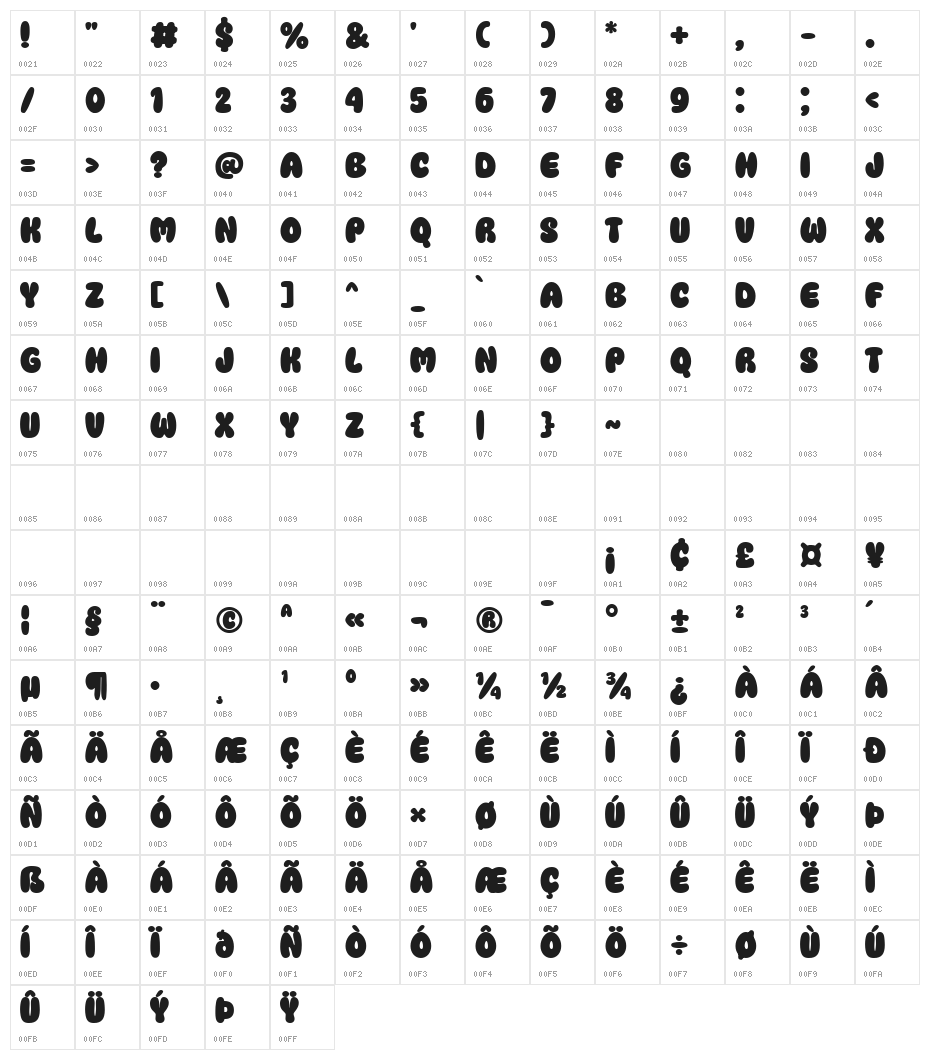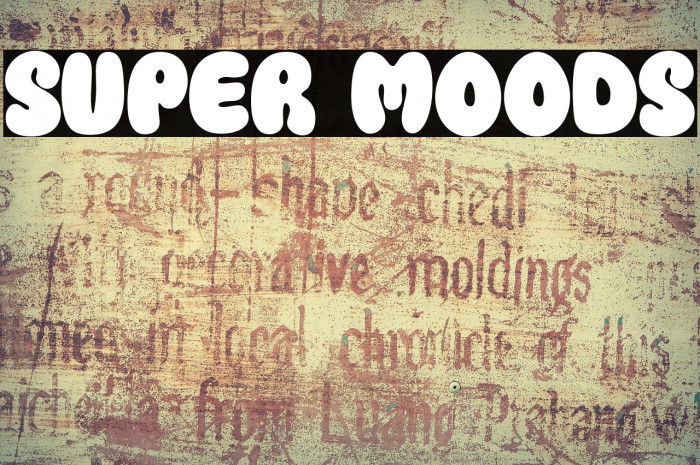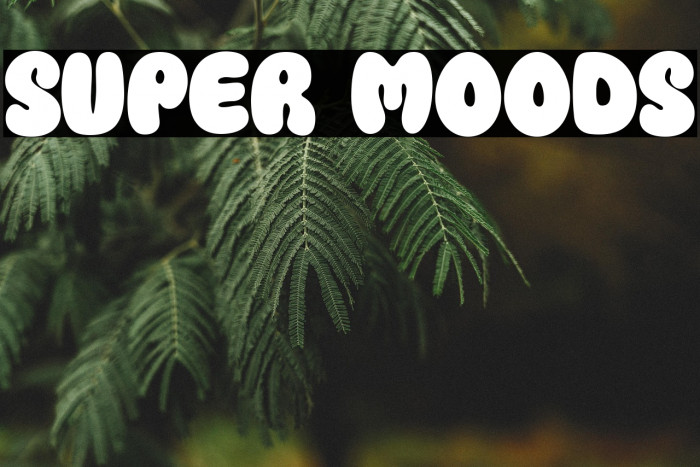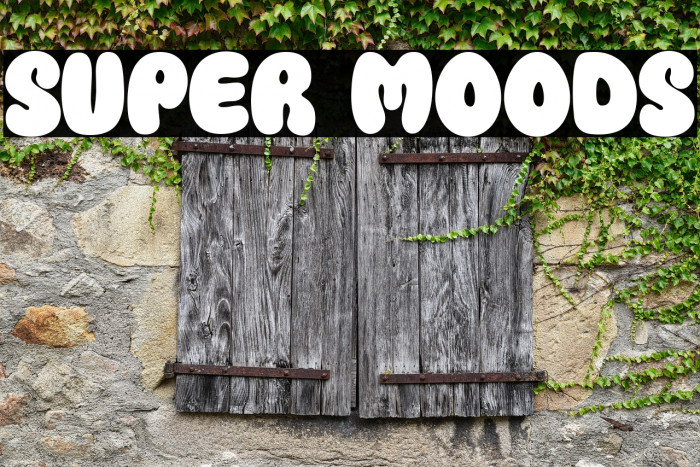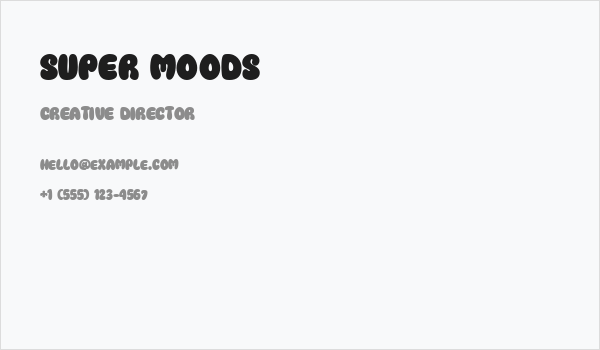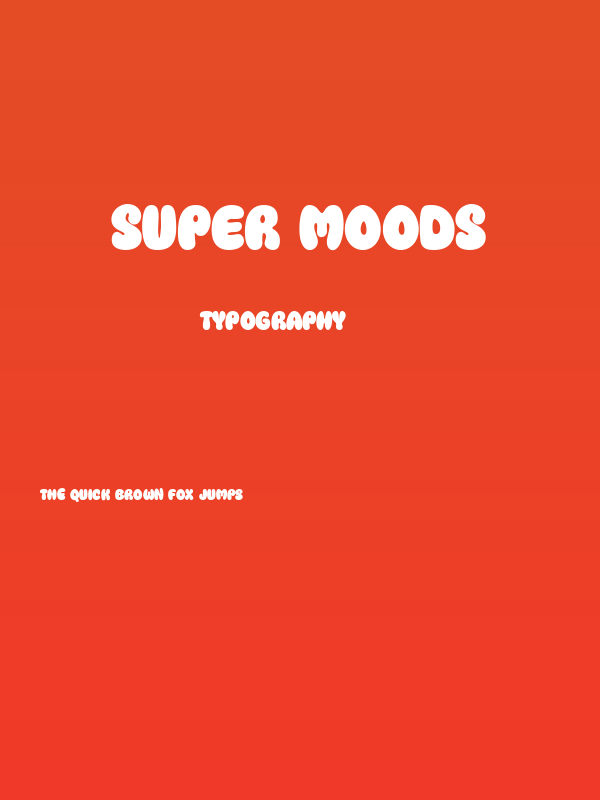
Super Moods Font
Super Moods Description
This playful and bold font features rounded, bubbly characters that exude a sense of fun and whimsy. The letters are thick and substantial, with a consistent weight throughout, giving them a strong presence on the page. The rounded edges and soft curves contribute to a friendly and approachable aesthetic, making it ideal for projects that aim to convey a sense of joy and creativity. The numbers and special characters maintain the same playful style, ensuring a cohesive look across all text elements. This font is perfect for designs that require a touch of personality and charm.